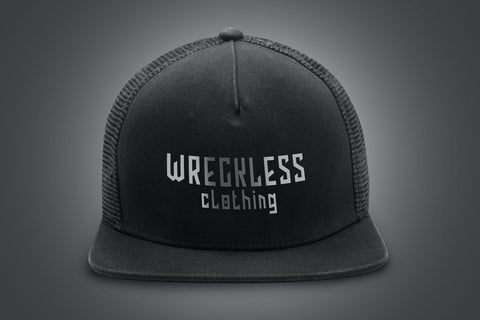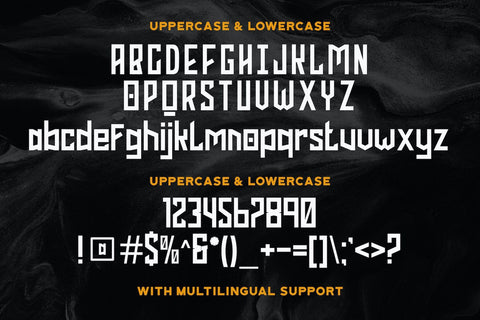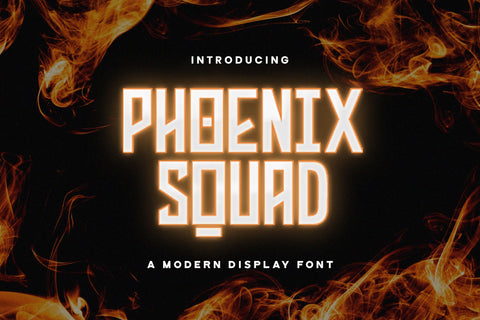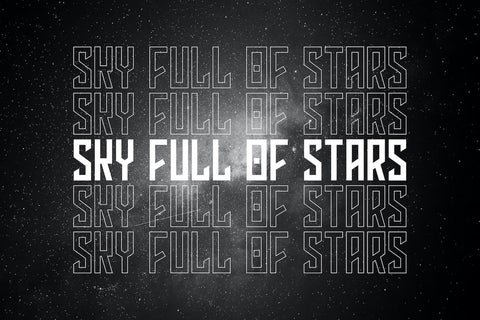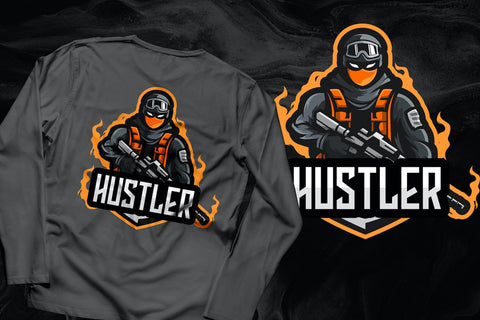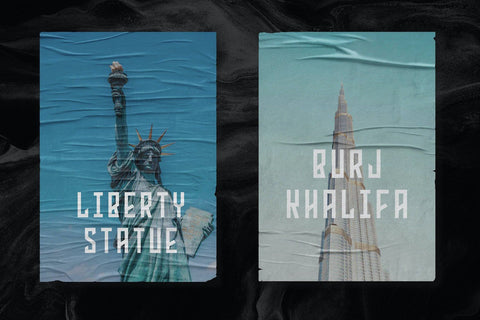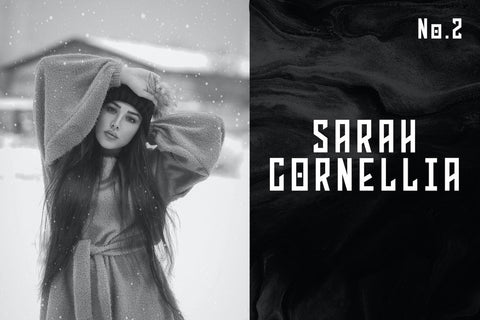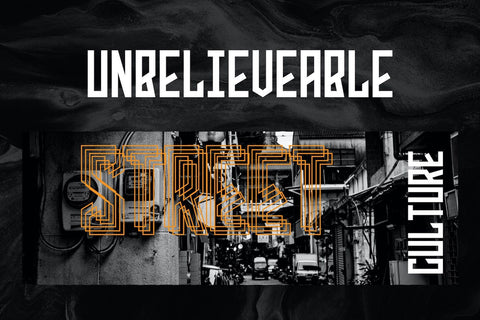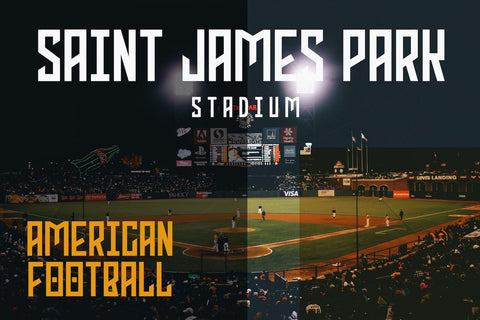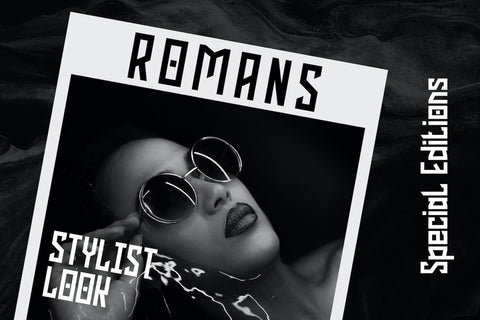
Phoenix Squad - Modern Display Font
Introducing Phoenix Squad - Modern Display Font
Phoenix Squad is a modern and bold display font. Add this font to your favorite creative ideas and notice how it makes them come alive!